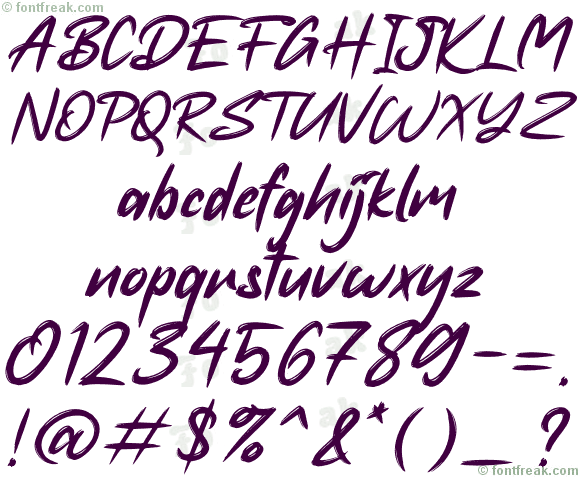
Hessthicc
Hessthicc, designed by Abas Creative in 2020, is a striking display font that captures attention with its unique character and flair. This font falls into the category of script-type typefaces, characterized by its fluid, handwritten style that exudes creativity and personality. The strokes are bold and dynamic, with a moderate contrast that adds depth while ensuring legibility. The spacing is well-considered, allowing for a harmonious flow that enhances readability without sacrificing style. The decorative elements, such as the exaggerated curves and playful loops, give it a lively and artistic appeal.
The Hessthicc font is ideal for a variety of creative applications. Graphic designers can utilize it for eye-catching wedding invitations, where its elegant yet informal style can perfectly convey the joyous occasion. Additionally, it serves as an excellent choice for restaurant menus, particularly those seeking to establish a trendy, casual atmosphere. Movie posters can also benefit from its bold presence, drawing viewers in with its vibrant energy. Content creators looking to elevate their branding will find this font invaluable for social media graphics or merchandise, as it can effectively communicate a brand's personality.
Targeted primarily at graphic designers, small business owners, and content creators, the Hessthicc font free download offers a versatile tool for those seeking to make a statement. Its unique style allows it to stand out in a crowded marketplace, making it an excellent choice for projects that require a touch of flair. The combination of its bold strokes and playful nature not only captures the essence of contemporary design but also invites creativity in every application. Whether you’re crafting an invitation or designing a logo, Hessthicc brings an energetic and unique touch to your work.